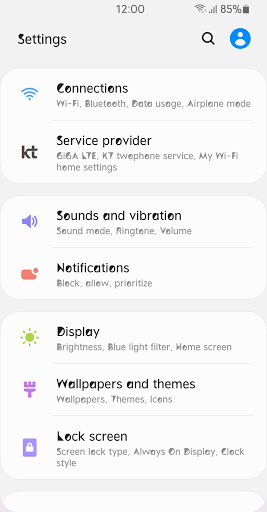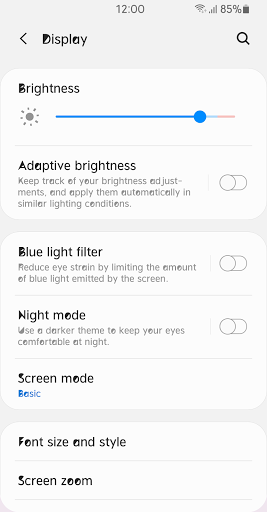
BSTTriangle™ Latin Flipfont
This typeface is the concept of challenging by introducing new ideas and styles in response to rapid changes in the times. Displays a graphic in which triangular graphic elements are interesting and rising.